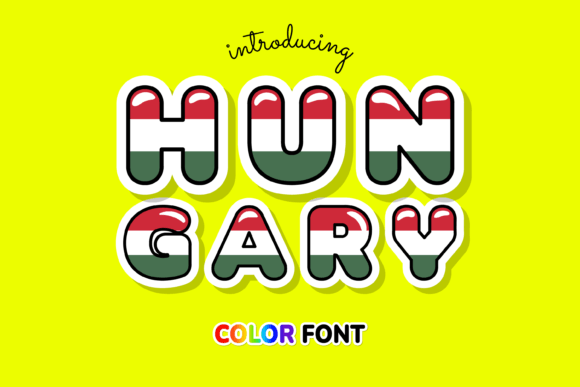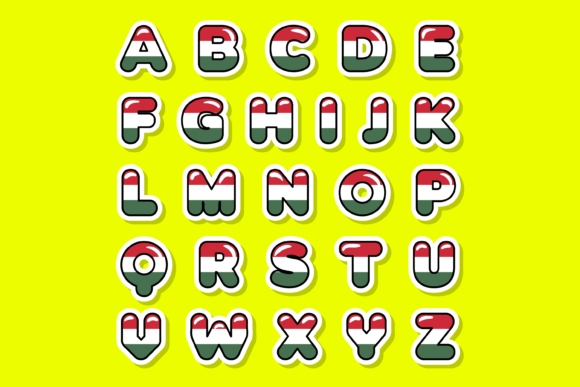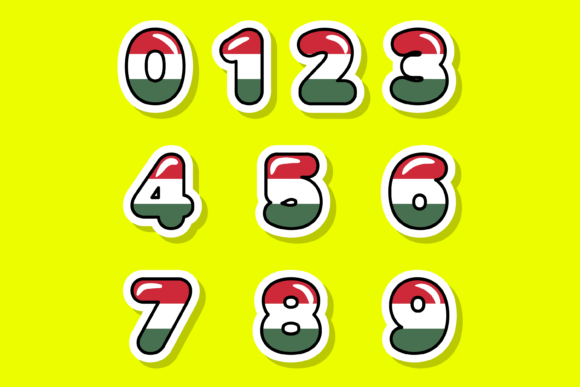
The Perfect Touch of Hungarian Flair
You know that feeling when you’re working on a project and suddenly, the right font pops up in your mind, elevating your entire design? It’s like magic. For those moments, I’m excited to introduce you to the Hungary Font, a stunning color font inspired by the Hungarian flag. This beautiful font is designed to bring a touch of Hungarian culture to your creations, whether it’s a custom design, DIY craft, or any other project that needs a little extra love.
As a designer, you know how challenging it can be to find the perfect font to match your vision. That’s where the Hungary Font comes in – a valuable addition to your design toolkit. Its unique style and color scheme make it a standout choice for anyone looking to add a pop of personality to their work. With the Hungary Font, you’ll be able to create designs that truly reflect your style and creativity.
Hungary Font Key Features
- Font Family: Hungary Font is a sans-serif font family designed by the Hungarian type foundry, Type Solutions.
- Character Set: The font includes a comprehensive character set, supporting Latin, Central European, and Cyrillic scripts, making it suitable for multilingual applications.
- Unique Characteristics: Hungary Font features a distinctive, modern design with a strong emphasis on legibility, making it an excellent choice for body text, headlines, and signage.
Hungary Font Review
Overall, I was excited to dive into the Hungary Font, but I have mixed feelings about it. Here’s my honest take:
- The Hungary Font’s unique aesthetic is a great conversation starter. It’s a bold and quirky choice that can add some personality to a design.
- The font is highly legible, even at smaller sizes, which is a must for any font.
- The font’s irregular shapes and lines give it a hand-drawn feel that can add a touch of whimsy to a design.
- The font’s boldness can be overwhelming in larger sizes, and it may not be suitable for all design projects.
- The font’s irregular shapes can make it difficult to pair with other fonts, which may limit its versatility.
- The font may not be suitable for body text, as it can be difficult to read in large blocks of text.
Overall, I think the Hungary Font is a great choice for designers who want to add some personality to their work. However, it may not be the best choice for every project. With some careful consideration and pairing, this font can be a real showstopper.
Tips for Getting the Most Out of Hungary Font
To get the most out of Hungary Font, try the following:
- Use it for titles and headings to add a touch of elegance.
- Pair it with other fonts to create a unique and eye-catching design.
Hungary Font is commonly used for:
- Editorial and publishing design.
Alternatives to Hungary Font
1. Museo
Museo is a high-contrast sans-serif typeface designed by Jos Buivenga. It is perfect for body text and is often used in magazines, newspapers, and online publications. Museo has a more geometric and modern feel compared to Hungary Font, which is more rounded and elegant.
Montserrat is a sans-serif typeface designed by Julieta Ulanovsky. It is ideal for digital products, web design, and urban environments. Montserrat has a more edgy and industrial feel compared to Hungary Font, which is more classic and sophisticated.
Lato is a sans-serif typeface designed by Łukasz Dziedzic. It is suitable for a wide range of applications, including body text, headings, and titles. Lato has a more clean and minimalist feel compared to Hungary Font, which is more ornate and decorative.
Open Sans is a sans-serif typeface designed by Steve Matteson. It is a highly legible and versatile font that is often used in digital products, web design, and print materials. Open Sans has a more modern and neutral feel compared to Hungary Font, which is more traditional and classic.